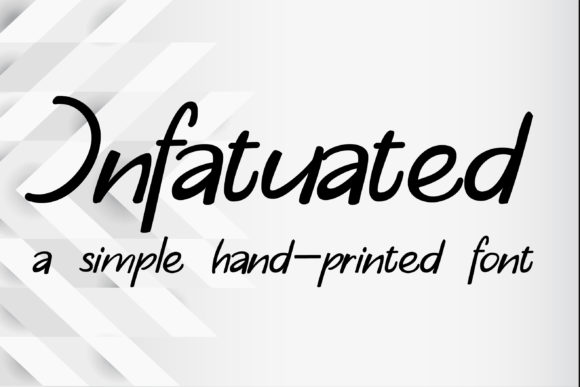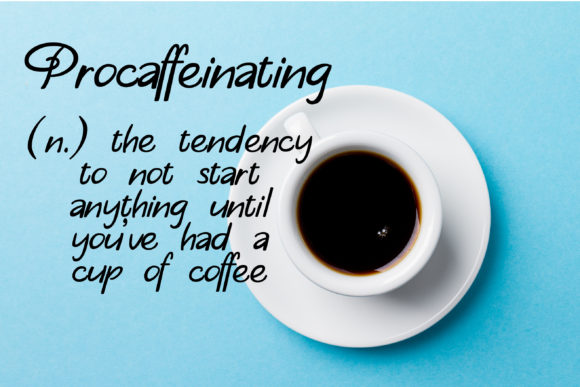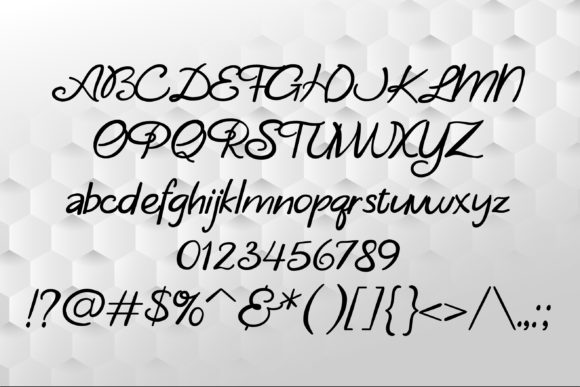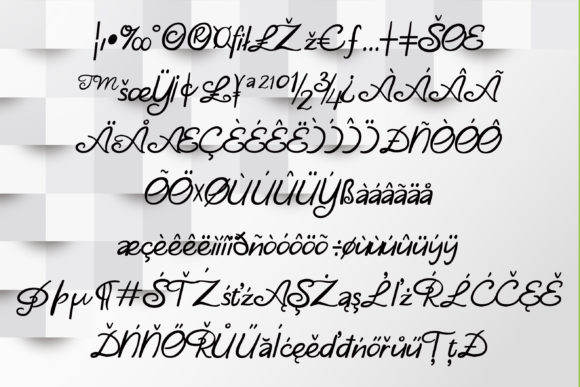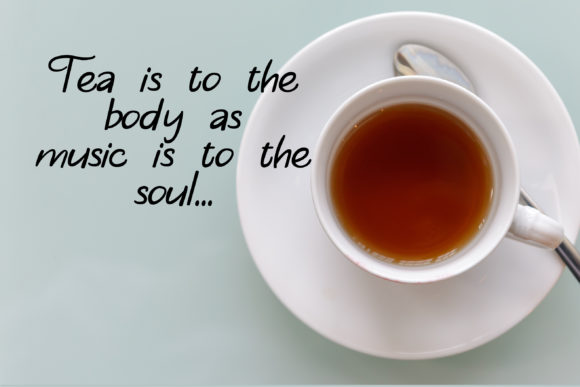
Infatuated Font
About Infatuated Font
Infatuated is a casual hand-crafted print that has a bold weight that makes it a great font for crafting. Get inspired by its unique look & feel!